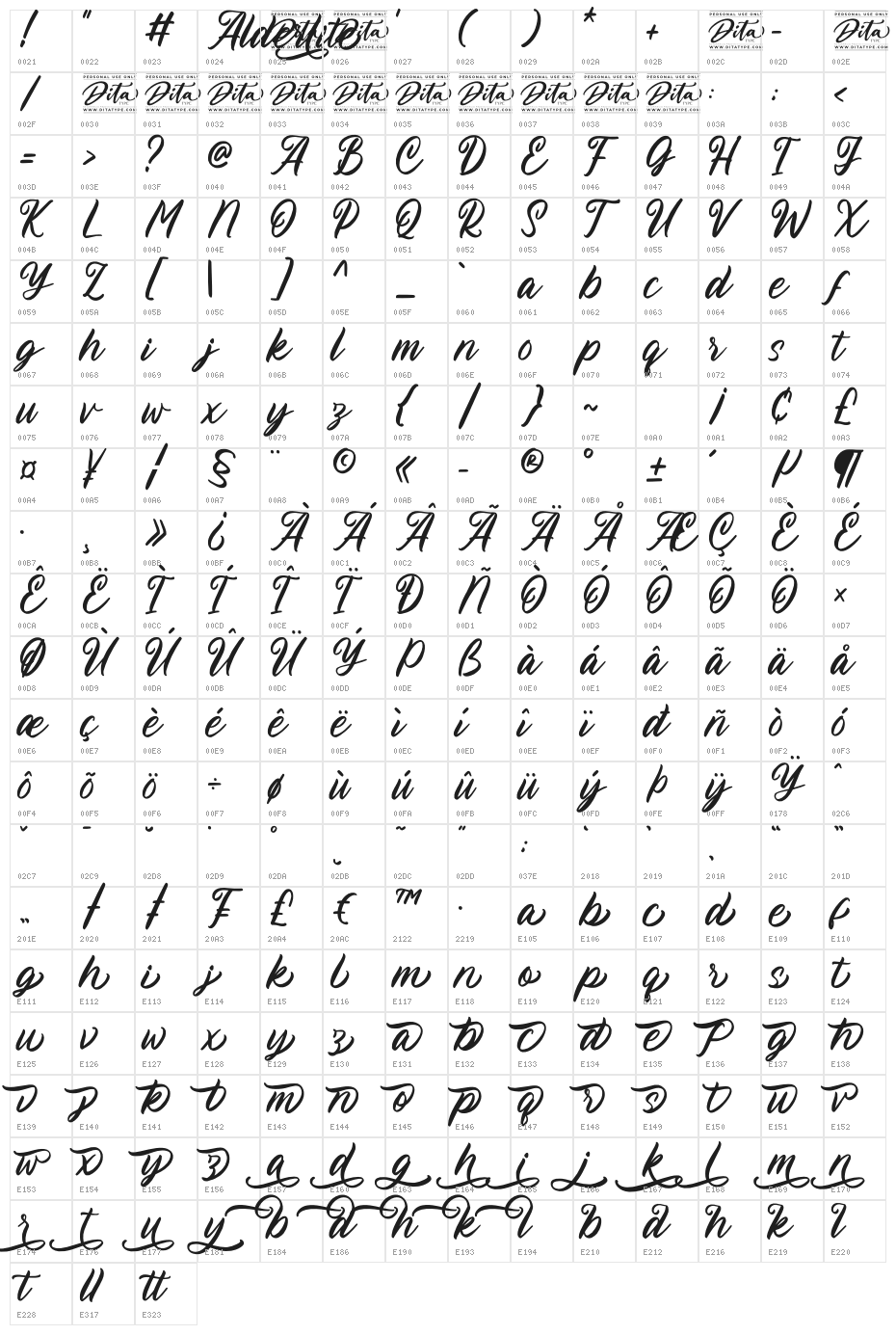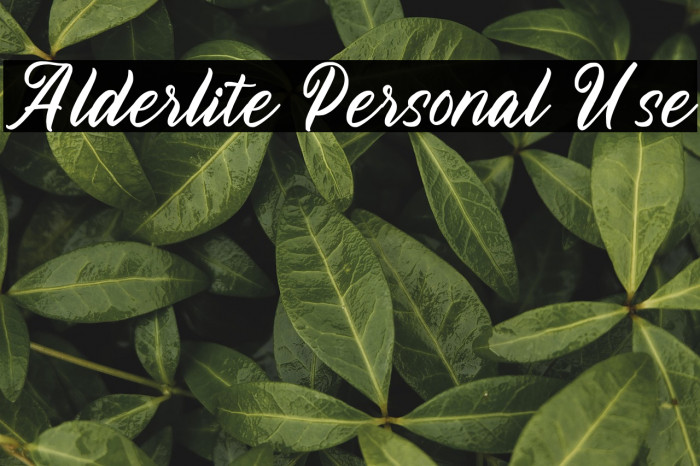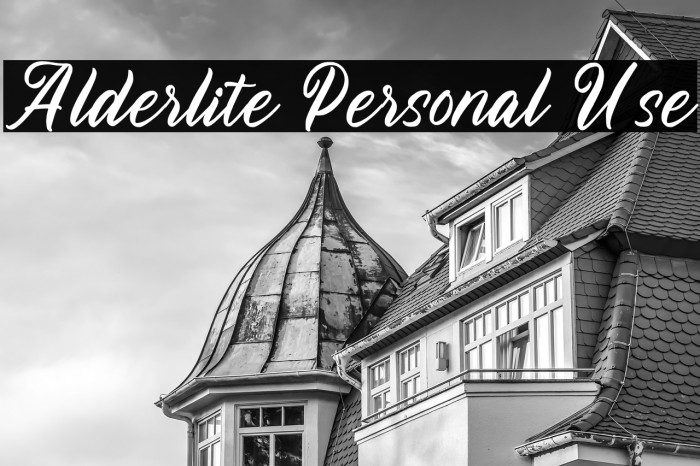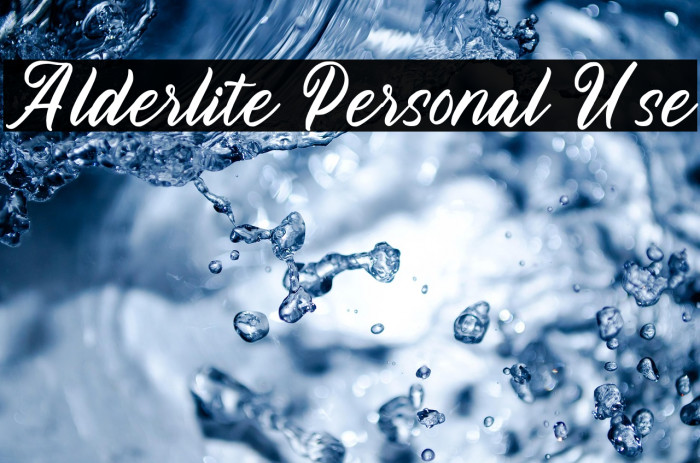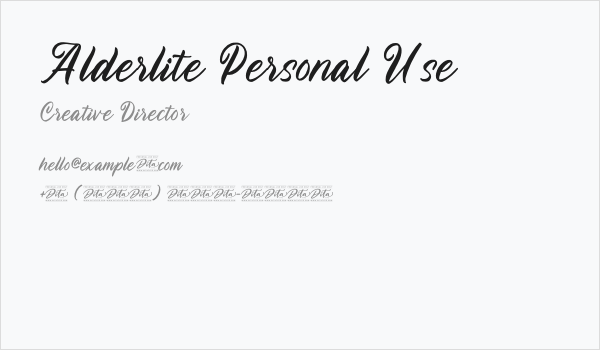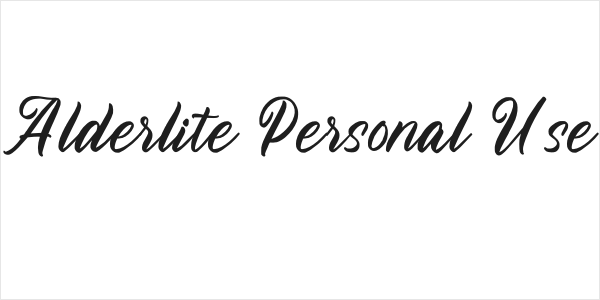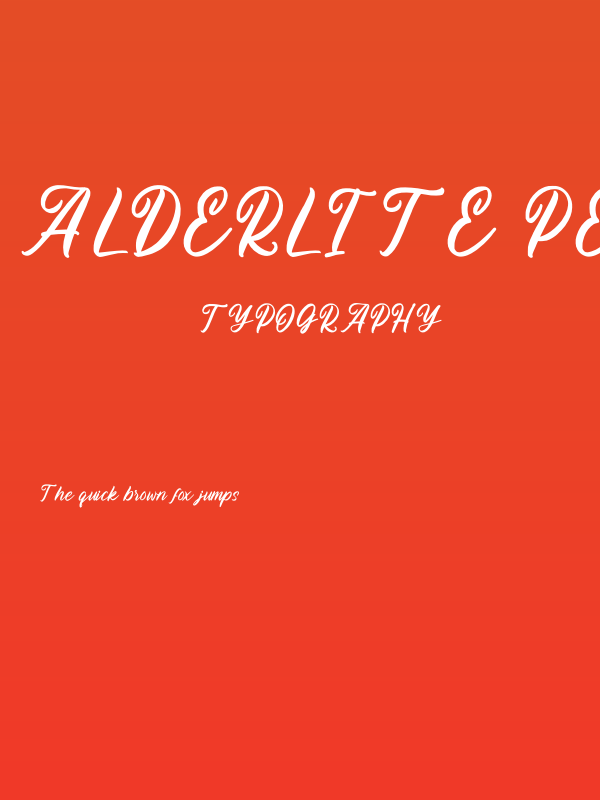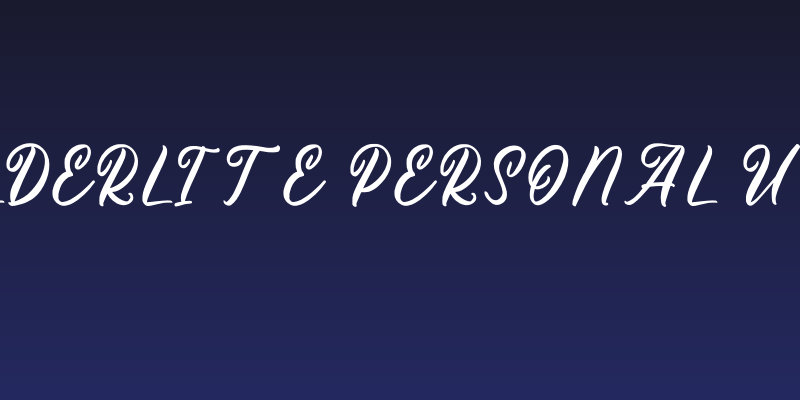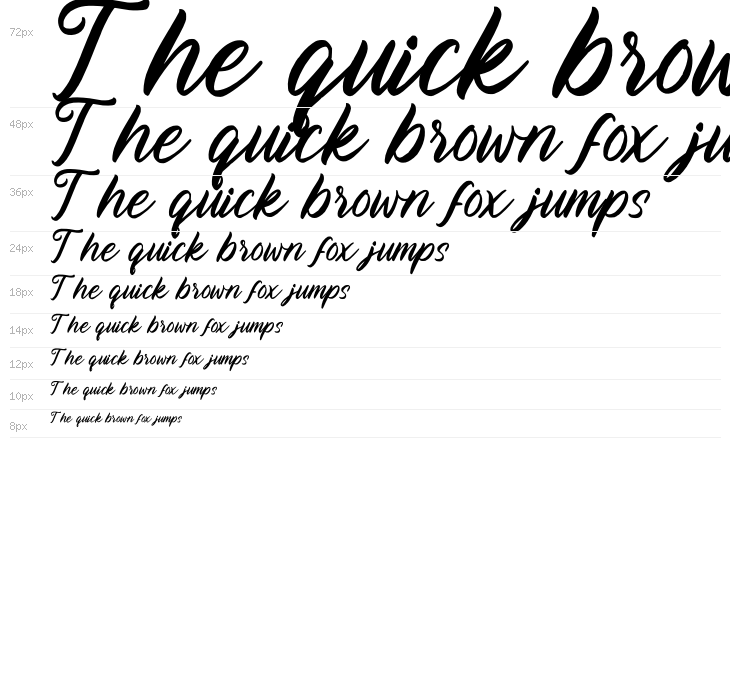
Alderlite Personal Use Font
Alderlite Personal Use Description
This font features a bold and expressive script style, characterized by its flowing, cursive letterforms. The uppercase letters are elegantly crafted with smooth curves and a slight slant, giving them a dynamic and lively appearance. The lowercase letters maintain a consistent style, with some letters extending below the baseline, adding to the font's fluidity. The overall design is modern and artistic, making it suitable for creative projects. The special characters are integrated seamlessly, maintaining the font's cohesive look. This font is ideal for personal use, offering a stylish and contemporary feel.
| Proposed Projects | Ideal for wedding invitations, branding, social media graphics, and personal projects requiring a stylish touch. |